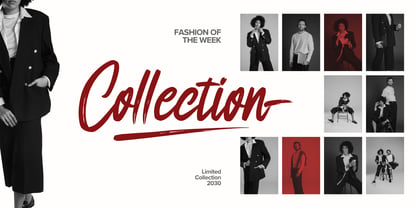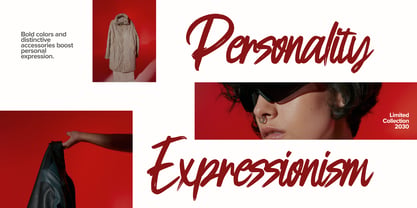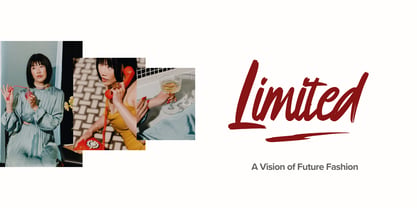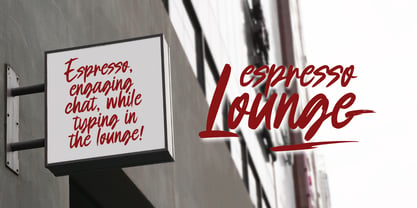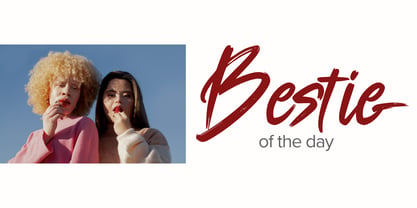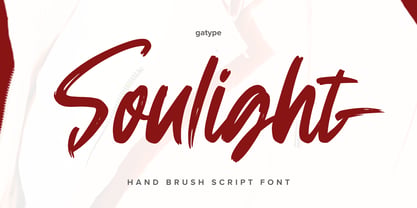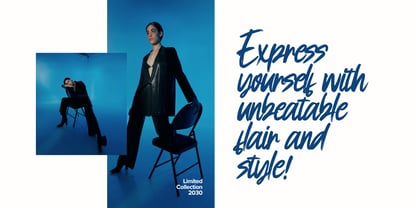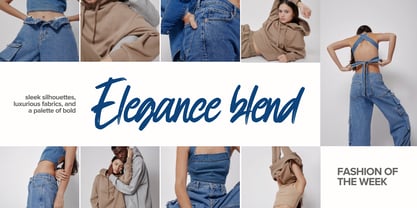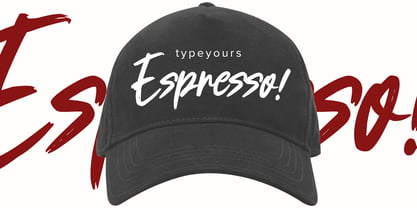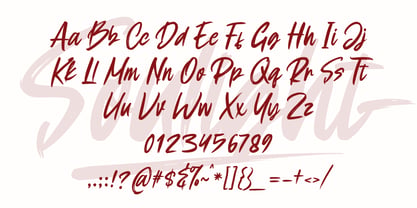
Soulight
by Gatype
The Soulight Font Family was designed by khaidir and published by Gatype. Soulight contains 1 styles. More about this family
Introducing Soulight, a casual and charming brush font with a natural flow and artistic touch. Designed to bring warmth and personality into your designs, Soulight helps you create eye-catching lettering with ease. Crafted by Gatype, this font blends a relaxed handwritten feel with stylish brush strokes, making it versatile for various creative projects. Whether you're aiming for something playful or expressive, Soulight delivers a unique visual appeal. Perfect for posters, banners, logos, book covers, headings, printed materials, merchandise, social media content, and much more. Explore different possibilities and see how Soulight enhances your design through its preview. FEATURES : Stylistic Alternates Beautiful Swashes PUA Encoded (easy access to all glyphs) Multilingual Support Enjoy creating with Soulight! Numerals & Punctuation
Designers: khaidir
Foundry: Gatype